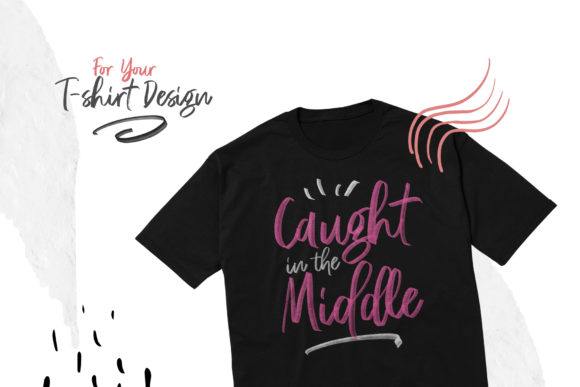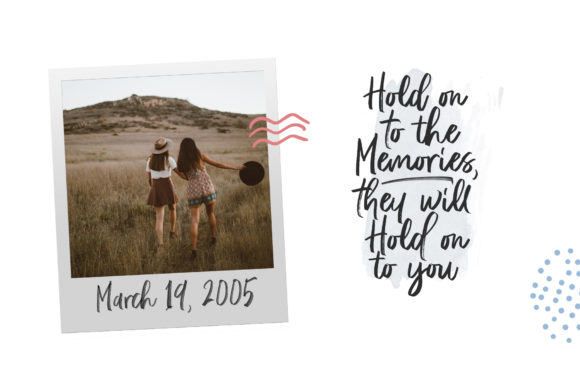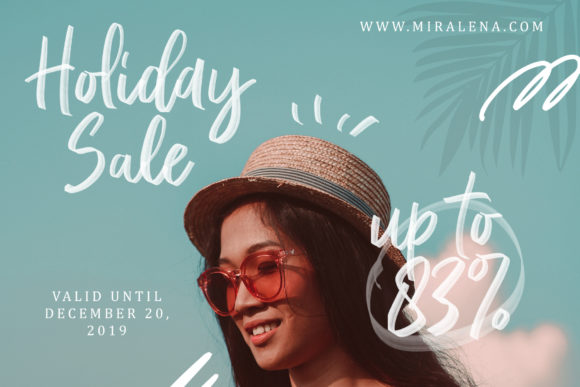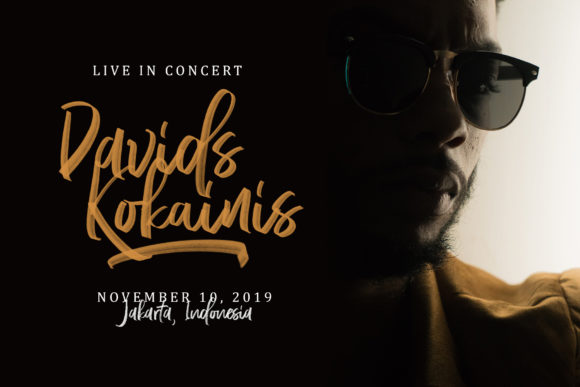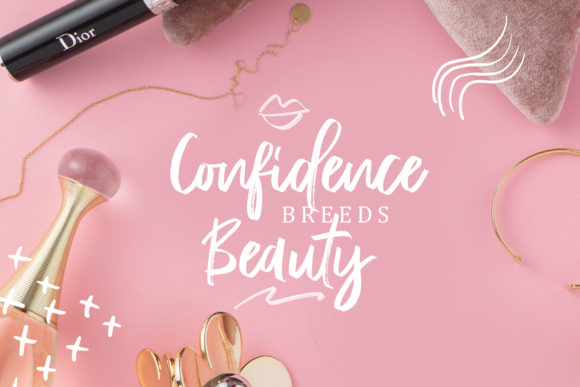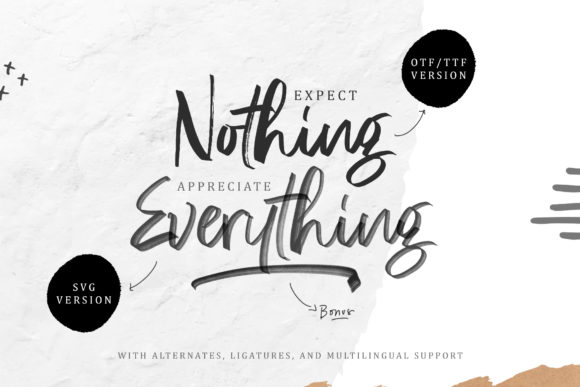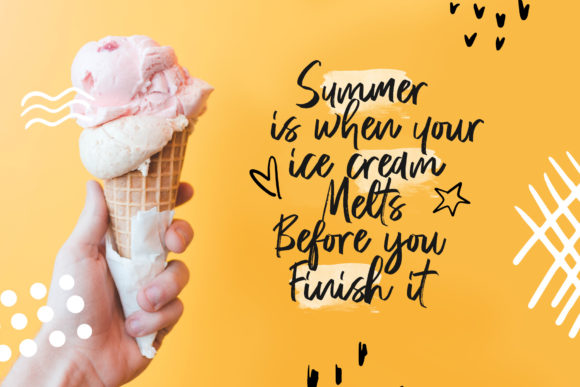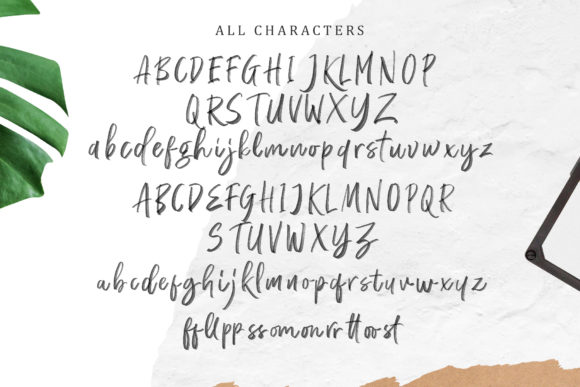
Rossie Kelly Font
About Rossie Kelly Font
The Rossie Kelly is an elegant font. It includes a regular version and a svg version. Included are amazing swashes which you can use to give your design an unique touch. It can be used for various purposes such as making realistic handwriting, for promotions, and much more.